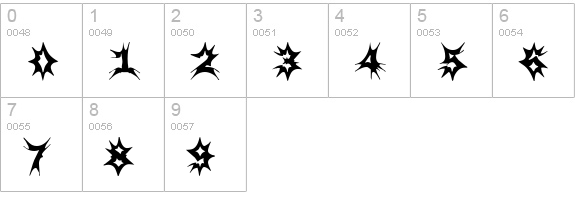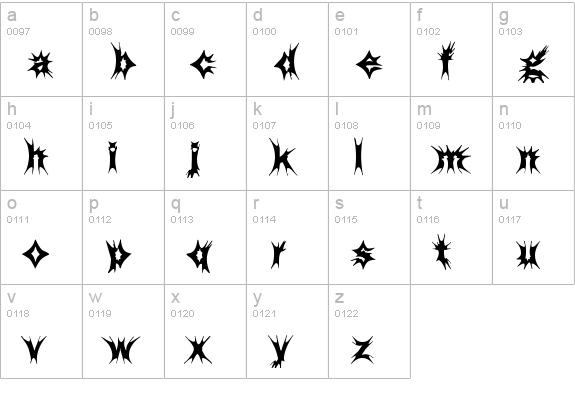
Funky34-Bold Font Details
Funky34-Bold is a strong, high-contrast variant in the Funky34 typeface family \xE2\x80\x94 well suited to headlines, attention-grabbing titles, and strong calls-to-action.
Funky34-Bold font is a vibrant and eye-catching display typeface that exudes a playful and funky vibe. With its bold and exaggerated shapes, this font is perfect for making a statement and grabbing attention. The unique design of Funky34-Bold makes it ideal for various creative projects, from posters to logos to social media graphics. What sets Funky34-Bold apart is not only its striking appearance but also its versatility. Whether you're looking to add a touch of fun to your designs or create a retro-inspired look, this font has got you covered. Its bold and dynamic style will ensure that your message stands out and leaves a lasting impression. Best of all, Funky34-Bold is available for free download at FontsMarket.com. So you can easily access this one-of-a-kind font and start using it in your projects right away. Don't miss out on the opportunity to add a touch of funkiness to your designs with Funky34-Bold!